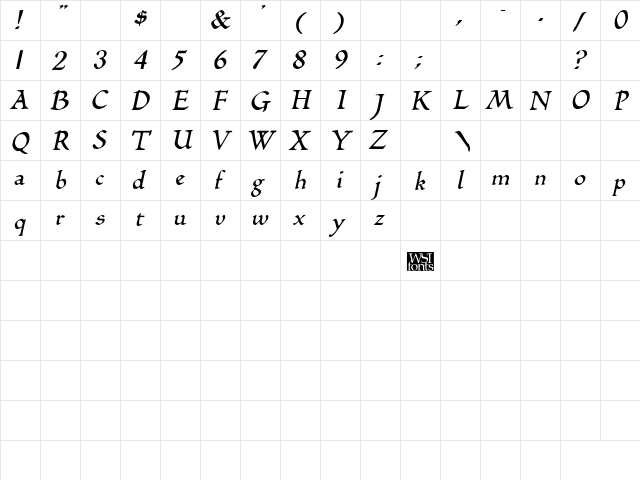
BilboDisplay Bold Italic Font Preview
BilboDisplay Bold Italic
Design Context for BilboDisplay Typeface
BilboDisplay brings ornamental detail and strong personality to headlines and identities, where visual impact matters more than quiet functionality. The slanted form adds forward momentum and visual energy. Its bold stroke weight gives it real presence on the page.
Font Pairing: Pair with a clean neutral sans-serif for body copy to let BilboDisplay's character lead without overwhelming the composition.
Pro Tip: Treat BilboDisplay as the centrepiece of your typographic hierarchy. One strong heading set in a decorative face can carry an entire layout.